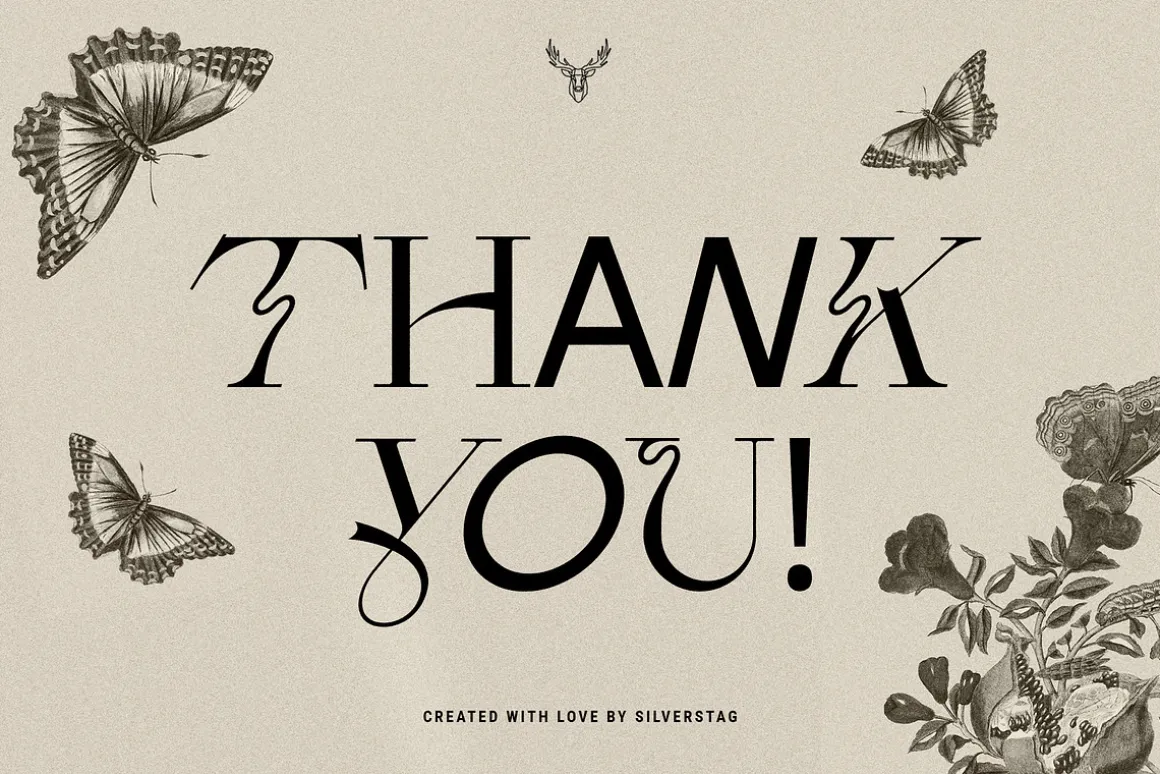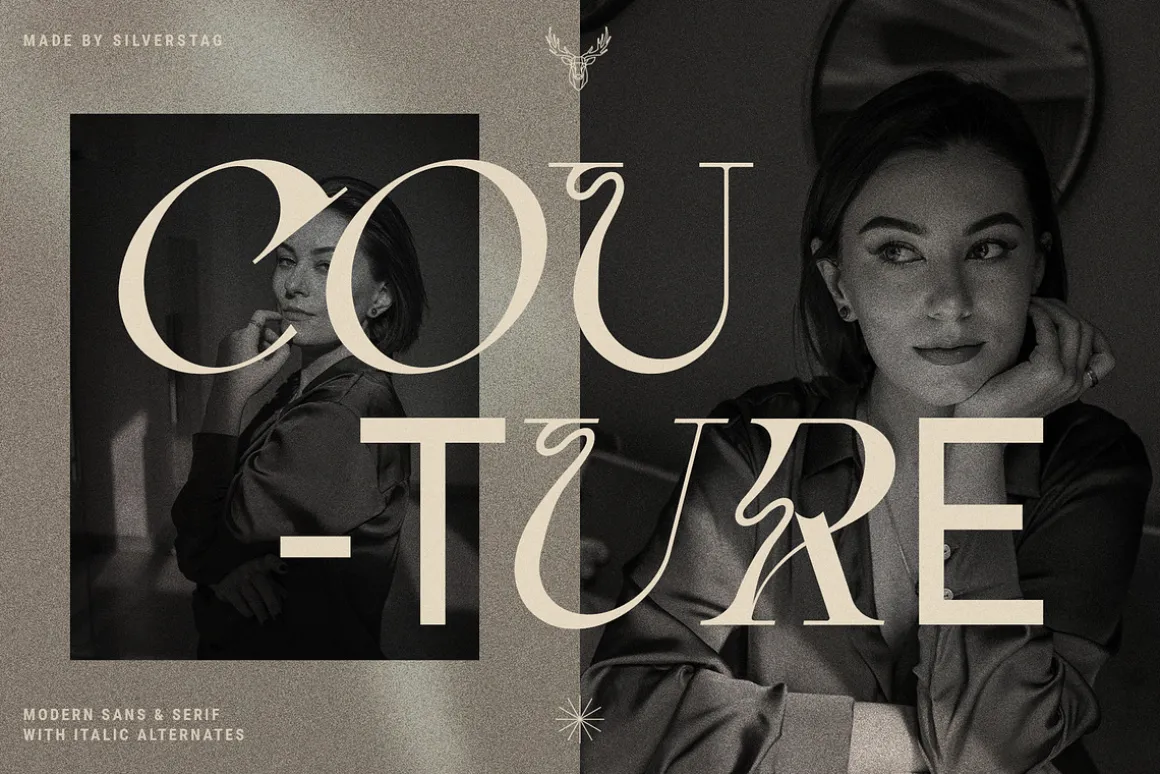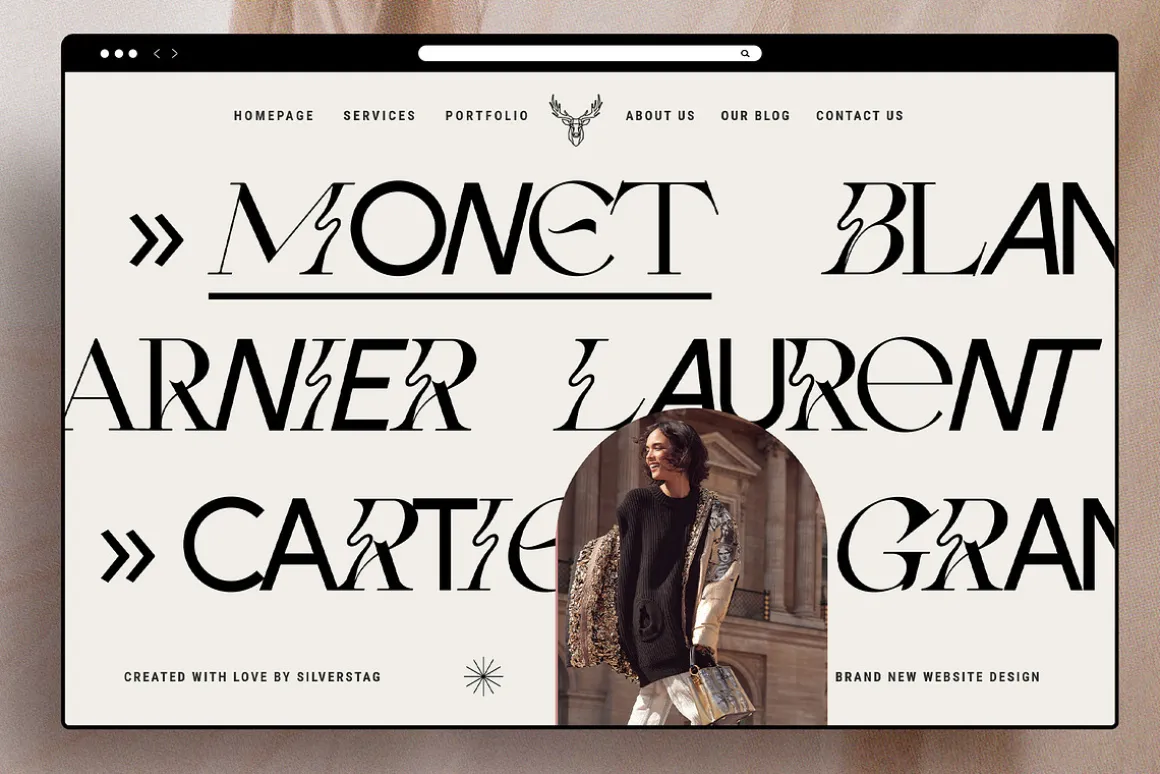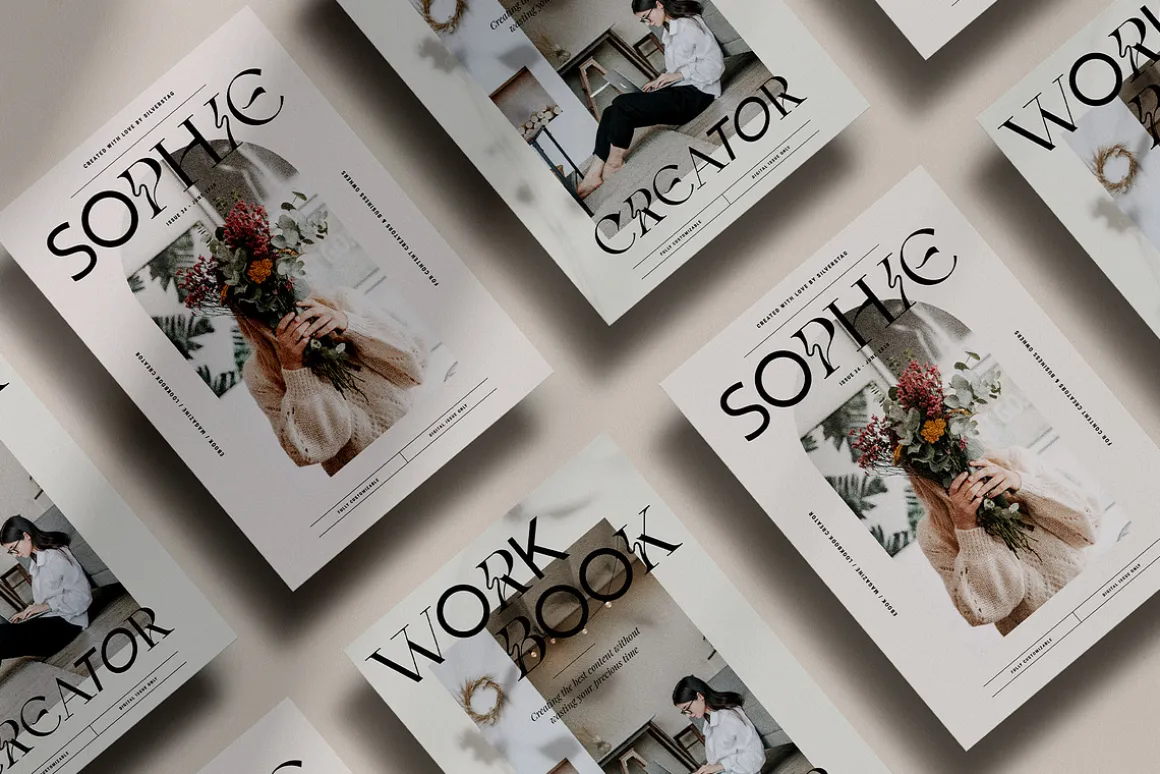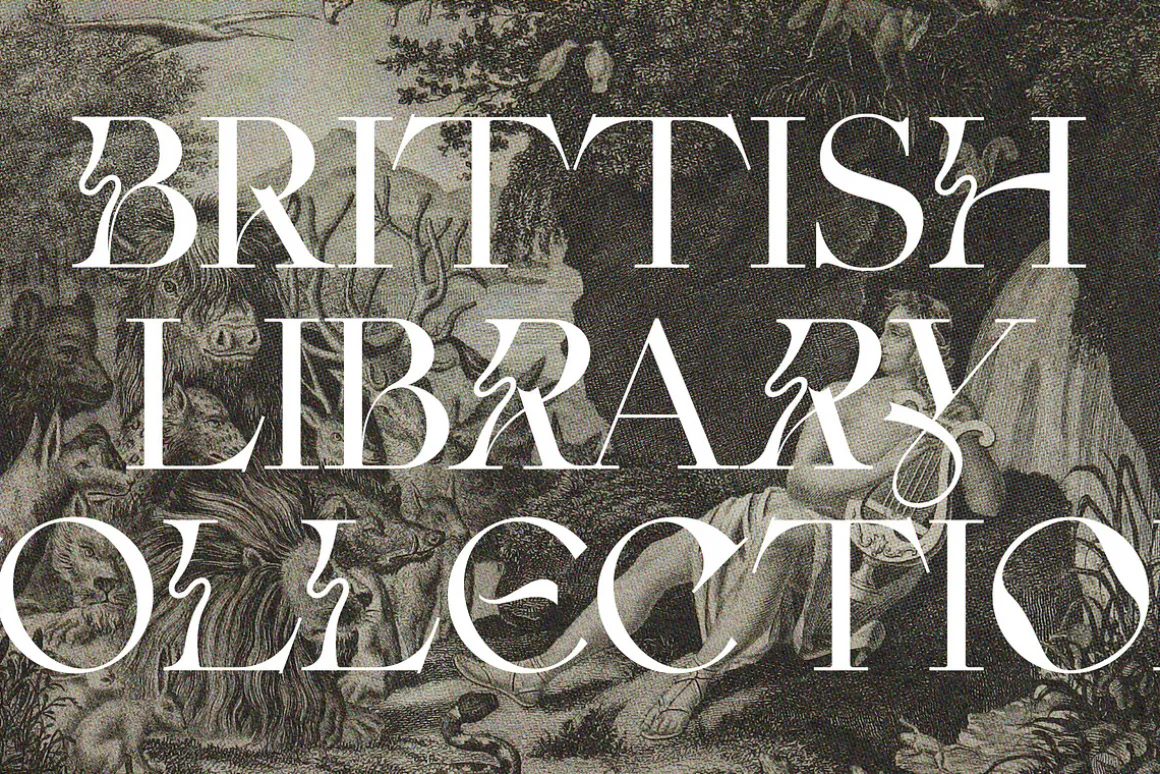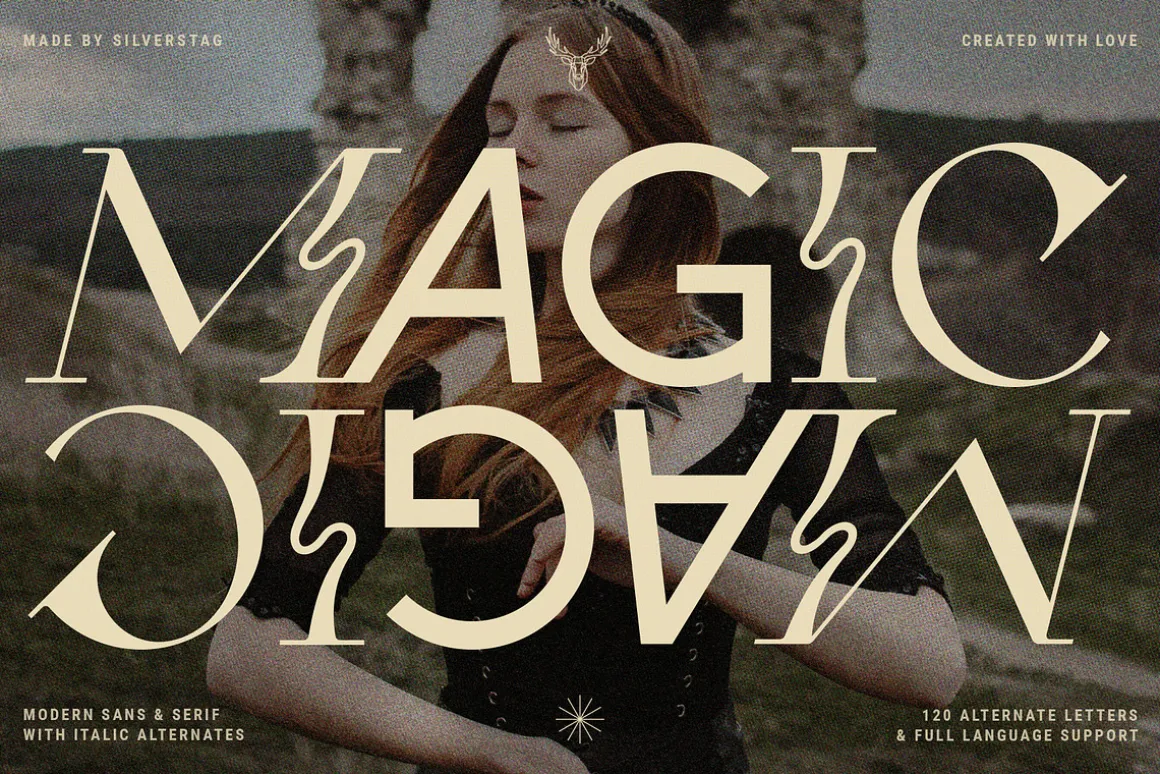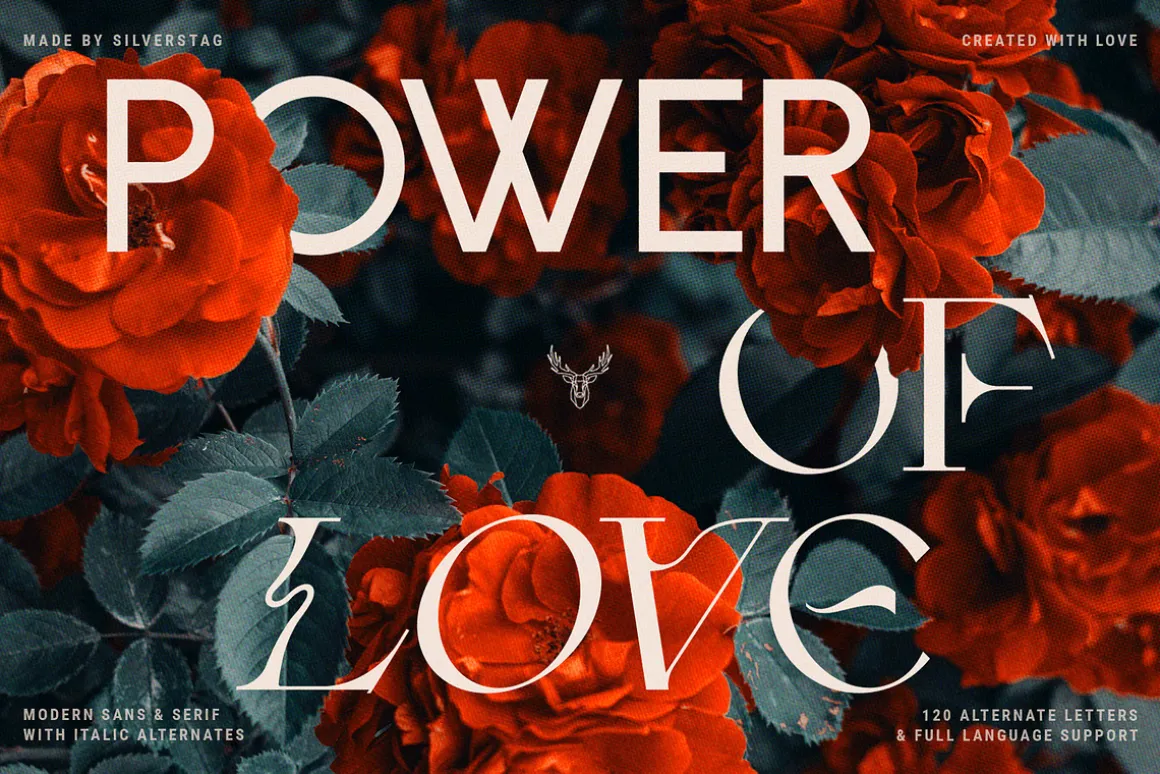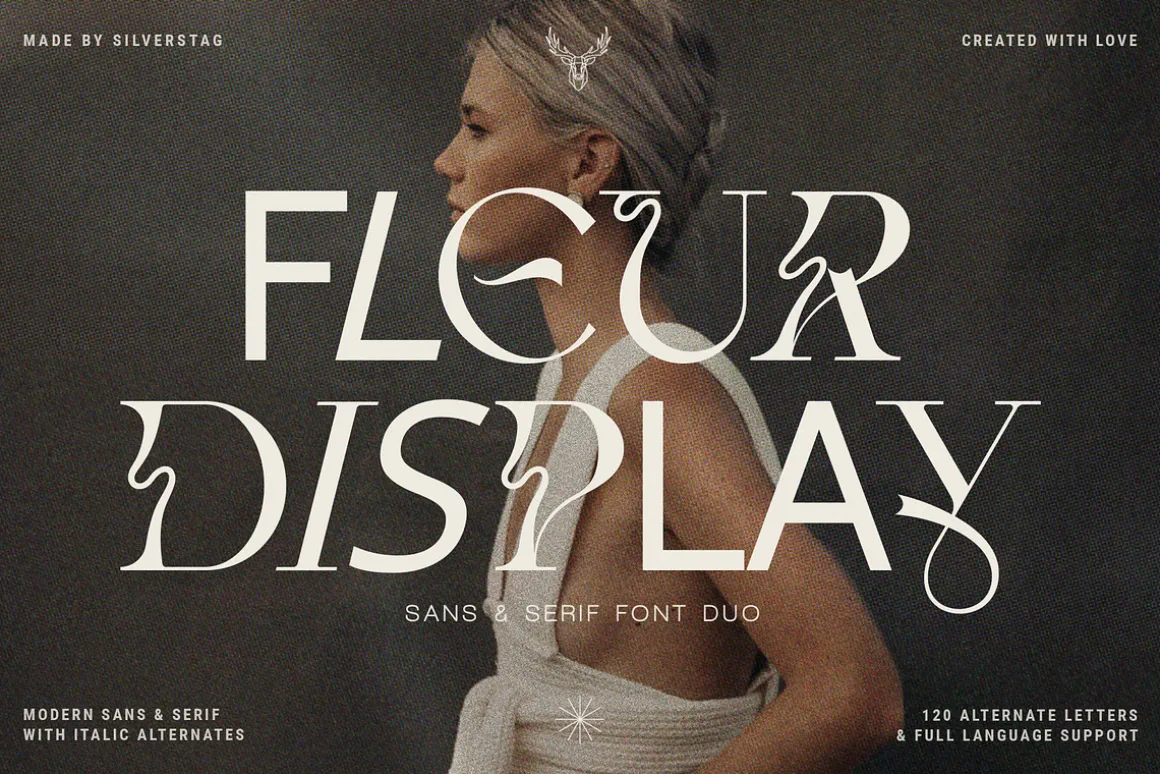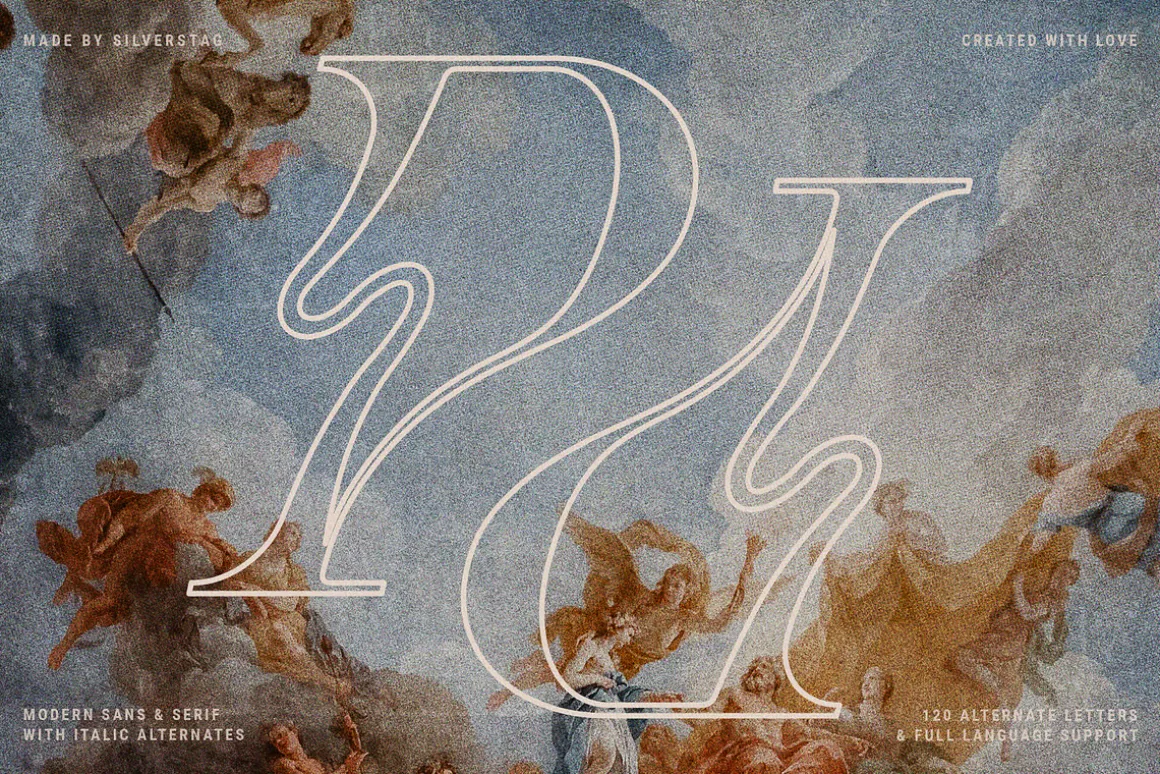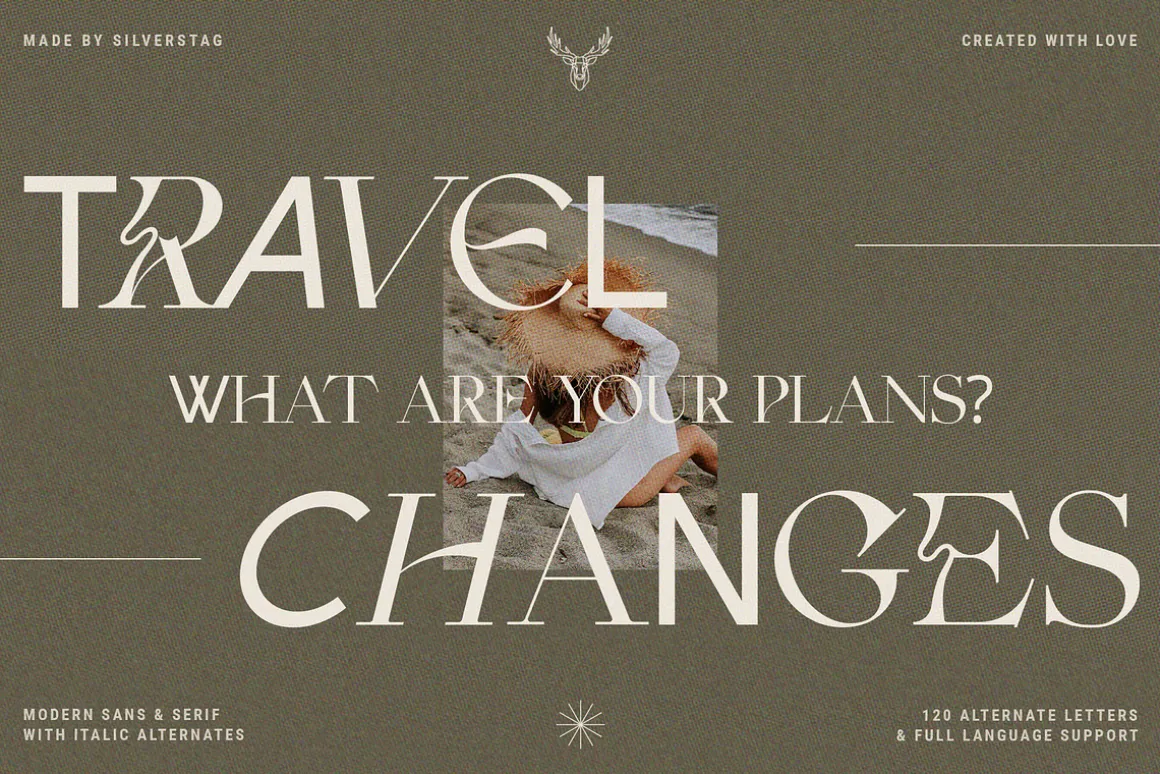
I have asked this question three months ago, but I will ask again now! Is it a serif or is it a sans? Is it italic or regular? Or maybe outlined? It’s actually all of that and more! But, yes there is a but, it’s not 2 in 1, but actually 8 in 1! Fleur is my new sans & serif font duo that includes regular, italic, outlined and outlined italic options, all in one typeface and it looks gorgeous! Don’t trust me? Check out the check out the slides above and see them all for yourself.
If you want to use serif just type lowercase letters! Sans, you say? Just go with uppercase letters! And the other options? How do I use italics? Italic letters are available as alternates, so you will get a whole font family in one font! And now, you might be asking yourself are there additional alternates? YES, yes there are. All serif letters have at least one alternate and in total there’s 120 of them! So, what are you waiting for? Get the font and happy creating!
- 120 Alternate Letters
- Numerals & Punctuation
- Language Support For Each Option – Regular, Italic, Bold & Bold Italic